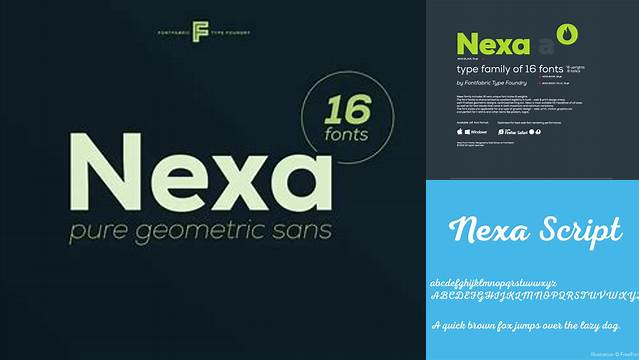
Hey guys! Ever wondered about those sleek, modern fonts that seem to pop up everywhere? Chances are, you've stumbled upon the Nexa family. Known for its clean lines and versatility, Nexa free fonts have become a go-to choice for designers and creatives. Let's dive into the world of Nexa, explore where you can find these gems for free, and how to make the most of them in your projects!
1. What Makes Nexa Fonts So Popular?
So, what's the big deal with Nexa free fonts? Well, its popularity stems from its modern and geometric design. This makes it incredibly versatile, suitable for everything from logos and headlines to body text and web design. The clean, sans-serif style gives it a contemporary feel that works well in a variety of contexts. Think about brands that want to project a sense of innovation and clarity – Nexa is often the perfect fit! Plus, its legibility is top-notch, ensuring your message is always clear and easy to read. Whether you’re designing a website, creating marketing materials, or crafting a presentation, Nexa’s got your back.
4. Identifying Different Weights and Styles of Nexa
Nexa comes in a range of weights and styles, each with its unique character. From the light and airy Nexa Light to the bold and impactful Nexa Black, there's a style for every occasion. Understanding these variations is key to using Nexa free fonts effectively. For instance, Nexa Bold is great for headlines, while Nexa Light works well for body text or subtle design elements. Experiment with different weights to see what works best for your project. Knowing the nuances of each style will help you create visually appealing and balanced designs.
5. Using Nexa in Logo Design: Tips and Tricks
When it comes to logo design, Nexa free fonts can be a game-changer. Its clean and modern aesthetic makes it a versatile choice for various brands. To make the most of Nexa in your logo, focus on simplicity and readability. Use a weight that reflects your brand's personality – a bold weight for a strong, confident brand, or a lighter weight for a more delicate and sophisticated feel. Pair it with complementary colors and design elements to create a memorable and impactful logo. Don't be afraid to experiment with letter spacing and kerning to achieve the perfect look!
6. Nexa for Web Design: Best Practices
For web design, Nexa free fonts offer a clean and modern look that can enhance user experience. When using Nexa on your website, ensure it's legible across different devices and screen sizes. Optimize the font weight and size for readability, and consider using different styles for headings and body text. Also, pay attention to page load times – using too many font weights can slow down your site. Tools like Google Fonts can help you embed Nexa efficiently without compromising performance. By following these best practices, you can create a visually appealing and user-friendly website.
7. Nexa in Print Design: Achieving Optimal Results
Using Nexa free fonts in print design requires a slightly different approach than web design. In print, you need to ensure that the font renders clearly and sharply. Choose a weight that's appropriate for the size of the text – avoid overly thin fonts for small text, as they might appear blurry. Always proof your designs before printing to catch any rendering issues. Also, consider the paper stock – some papers work better with certain fonts than others. By paying attention to these details, you can achieve optimal results in your print projects.
8. Pairing Nexa with Other Fonts
Even the coolest font needs a friend! Pairing Nexa free fonts with other fonts can create a dynamic and visually appealing design. When choosing a complementary font, consider the overall style and tone of your project. For a classic and sophisticated look, pair Nexa with a serif font like Georgia or Times New Roman. For a more modern and edgy feel, try pairing it with a geometric sans-serif like Montserrat or Open Sans. Experiment with different combinations to find what works best for your design, and don't be afraid to break the rules!
9. Alternatives to Nexa Fonts
If you're looking for something similar to Nexa free fonts but want to explore other options, there are plenty of alternatives out there. Fonts like Montserrat, Open Sans, and Lato offer a similar clean and modern aesthetic. These fonts are also widely available and often come with free weights that you can use in your projects. Exploring alternatives can help you find the perfect font for your specific needs and add some variety to your design toolkit.
10. Understanding Font Licensing for Nexa
Font licensing can be a tricky subject, but it's essential to understand the terms before using Nexa free fonts in your projects. Different licenses allow for different uses – some are free for personal use but require a commercial license for business purposes. Always read the license agreement carefully to ensure you're complying with the terms. Using a font without the proper license can lead to legal issues, so it's better to be safe than sorry. When in doubt, contact the font foundry or distributor for clarification.
11. Nexa vs. Other Geometric Sans-Serif Fonts
Nexa free fonts is a popular choice, but how does it stack up against other geometric sans-serif fonts? Fonts like Futura, Avant Garde, and Avenir share a similar geometric structure but have their unique characteristics. Nexa tends to be more modern and versatile, while Futura has a more classic and Art Deco feel. Avenir is known for its clean and balanced design. Comparing these fonts can help you choose the best option for your project based on the specific aesthetic you're aiming for. Each font has its strengths and weaknesses, so consider your design goals when making your decision.
12. How to Install Nexa Fonts on Windows
Installing Nexa free fonts on Windows is a straightforward process. First, download the font files from a reputable source. Extract the files if they're in a ZIP archive. Then, right-click on the font file (usually a .ttf or .otf file) and select "Install." Windows will automatically install the font, and it will be available for use in your applications. Alternatively, you can copy the font files to the Fonts folder in your Windows directory. Restart your applications if the font doesn't appear immediately. With these simple steps, you'll have Nexa ready to go in no time!
13. Installing Nexa Fonts on macOS
Installing Nexa free fonts on macOS is just as easy as on Windows. After downloading the font files, double-click on the font file (usually a .ttf or .otf file). This will open the Font Book application. Click "Install Font" in the Font Book window, and macOS will install the font for you. The font will then be available in all your applications. If you're having trouble, try restarting your applications or your Mac. With a few clicks, you'll be all set to use Nexa in your designs!
14. Troubleshooting Common Nexa Font Issues
Sometimes, things don't go as planned. If you're having trouble using Nexa free fonts, there are a few things you can try. First, make sure the font is properly installed. Restart your application or computer to refresh the font cache. If the font still doesn't appear, check the font settings in your application to ensure it's selected. Also, verify that the font file is not corrupted. If all else fails, try downloading the font again from a different source. With a little troubleshooting, you can usually resolve most font-related issues.
15. Using Nexa for Branding Materials
Nexa free fonts is an excellent choice for branding materials, thanks to its modern and versatile design. Whether you're creating business cards, letterheads, or brochures, Nexa can help you establish a consistent and professional brand identity. Use a consistent weight and style of Nexa across all your materials to create a cohesive look. Pair it with your brand colors and logo to reinforce your brand message. With Nexa, you can create branding materials that are both visually appealing and effective.
16. Nexa in Mobile App Design
In the world of mobile app design, readability is key. Nexa free fonts offers excellent legibility, making it a great choice for app interfaces. Use a weight and size that's easy to read on small screens. Consider using different styles for headings and body text to create visual hierarchy. Optimize the font for different screen resolutions to ensure a consistent user experience. By using Nexa thoughtfully in your app design, you can create an interface that's both functional and aesthetically pleasing.
17. Designing Social Media Graphics with Nexa
Social media is all about grabbing attention, and Nexa free fonts can help you do just that. Its clean and modern design makes it perfect for creating eye-catching graphics for platforms like Instagram, Facebook, and Twitter. Use bold weights for headlines and captions to draw viewers in. Pair it with vibrant colors and engaging images to create visually appealing content. Experiment with different styles and layouts to find what resonates with your audience. With Nexa, you can create social media graphics that stand out from the crowd.
18. Creating Presentations with Nexa
A well-designed presentation can make all the difference, and Nexa free fonts can help you create one that's both professional and engaging. Use Nexa for your slide titles, headings, and body text to maintain a consistent and readable design. Choose a weight that's appropriate for the size of the text, and ensure there's enough contrast between the text and background. Use bullet points and visuals to break up the text and keep your audience engaged. With Nexa, you can create presentations that are both informative and visually appealing.
19. Nexa for E-book Design
When designing an e-book, typography plays a crucial role in the reading experience. Nexa free fonts can be a great choice for e-books, thanks to its excellent legibility. Choose a weight and size that's comfortable to read on digital devices. Pay attention to line spacing and margins to create a pleasant reading experience. Consider using different styles for headings and body text to create visual hierarchy. With Nexa, you can create e-books that are both visually appealing and easy to read.
20. The History and Evolution of Nexa Font Family
The Nexa free fonts family has a rich history and has evolved significantly over time. Designed by Fontfabric, it started as a single weight and has since expanded to include a wide range of styles and weights. The font's popularity has grown steadily, thanks to its clean and modern design. Understanding the history of Nexa can give you a greater appreciation for its versatility and timeless appeal. From its humble beginnings to its current status as a go-to font for designers, Nexa's journey is a testament to its quality and enduring appeal.
21. Advanced Typography Techniques with Nexa
Want to take your typography skills to the next level? Experiment with advanced techniques using Nexa free fonts. Adjust the kerning and tracking to fine-tune the spacing between letters and words. Use ligatures to create more elegant and seamless letter combinations. Experiment with different font sizes and weights to create visual hierarchy. By mastering these techniques, you can create typography that's both visually stunning and highly effective.
22. Nexa in Motion Graphics and Video Editing
In motion graphics and video editing, typography can play a key role in conveying your message. Nexa free fonts offers a clean and modern look that works well in video projects. Use it for titles, lower thirds, and on-screen text to create a professional and polished look. Animate the text to add visual interest and keep your audience engaged. Choose a weight and size that's easy to read on screen, and ensure there's enough contrast between the text and background. With Nexa, you can create motion graphics and videos that are both visually appealing and informative.
23. Nexa for Email Marketing Campaigns
Email marketing is all about grabbing attention and conveying your message effectively. Nexa free fonts can help you do just that. Use it for your email headlines, body text, and call-to-action buttons to create a consistent and professional look. Choose a weight and size that's easy to read on different devices and email clients. Optimize the font for web to ensure it renders correctly in all browsers. With Nexa, you can create email marketing campaigns that are both visually appealing and effective.
24. Nexa for Restaurant Menu Design
A well-designed restaurant menu can entice customers and boost sales. Nexa free fonts can help you create a menu that's both visually appealing and easy to read. Use it for your menu titles, descriptions, and prices to create a consistent and professional look. Choose a weight and size that's appropriate for the font, and ensure there's enough contrast between the text and background. Use visuals and descriptive language to make your menu items sound irresistible. With Nexa, you can create a restaurant menu that enhances the dining experience.
25. Nexa for Packaging Design
Packaging design is all about creating a memorable and impactful first impression. Nexa free fonts can help you create packaging that stands out on the shelves. Use it for your product names, descriptions, and branding elements to create a consistent and professional look. Choose a weight and size that's appropriate for the packaging size, and ensure there's enough contrast between the text and background. Use visuals and colors that align with your brand and product. With Nexa, you can create packaging that attracts customers and communicates your brand message effectively.
26. Nexa for Signage and Wayfinding Systems
Signage and wayfinding systems need to be clear, concise, and easy to read. Nexa free fonts offers excellent legibility, making it a great choice for these applications. Use it for your signs, directories, and directional cues to create a consistent and professional look. Choose a weight and size that's appropriate for the viewing distance, and ensure there's enough contrast between the text and background. Use symbols and icons to complement the text and provide additional guidance. With Nexa, you can create signage and wayfinding systems that are both functional and aesthetically pleasing.
27. Nexa for Creating Infographics
Infographics are a great way to present complex information in a visually appealing and easy-to-understand format. Nexa free fonts can help you create infographics that are both informative and engaging. Use it for your titles, headings, and body text to maintain a consistent and readable design. Choose a weight and size that's appropriate for the infographic size, and ensure there's enough contrast between the text and background. Use visuals, charts, and graphs to complement the text and illustrate your points. With Nexa, you can create infographics that capture attention and communicate your message effectively.
28. Designing Posters and Flyers with Nexa
Posters and flyers need to grab attention and convey your message quickly and effectively. Nexa free fonts can help you create posters and flyers that stand out from the crowd. Use it for your headlines, taglines, and key information to create a bold and impactful design. Choose a weight and size that's appropriate for the viewing distance, and ensure there's enough contrast between the text and background. Use visuals and colors that align with your message and target audience. With Nexa, you can create posters and flyers that capture attention and drive results.
29. Nexa in Resume and Cover Letter Design
Your resume and cover letter are your first impression on potential employers. Nexa free fonts can help you create documents that are both professional and visually appealing. Use it for your headings, body text, and contact information to maintain a consistent and readable design. Choose a weight and size that's appropriate for the document, and ensure there's enough white space to make it easy to read. Highlight your key skills and accomplishments to make a strong impression. With Nexa, you can create a resume and cover letter that helps you land your dream job.
30. The Future of Nexa Fonts: Trends and Predictions
What does the future hold for Nexa free fonts? As design trends continue to evolve, Nexa is likely to remain a popular choice for its versatility and timeless appeal. We can expect to see new weights and styles added to the Nexa family, as well as adaptations for different platforms and devices. The font's clean and modern aesthetic will continue to resonate with designers and brands seeking a contemporary look. Keep an eye on Nexa as it evolves and adapts to the changing landscape of design. The future looks bright for this versatile and enduring font family!